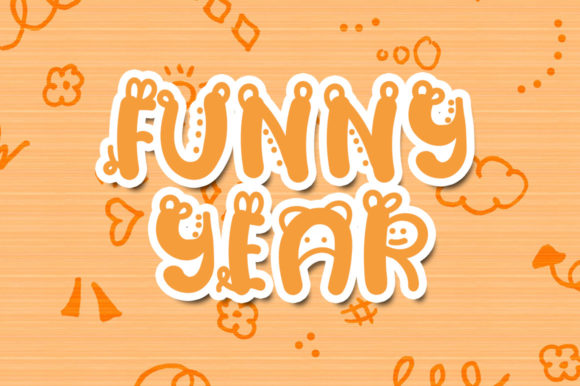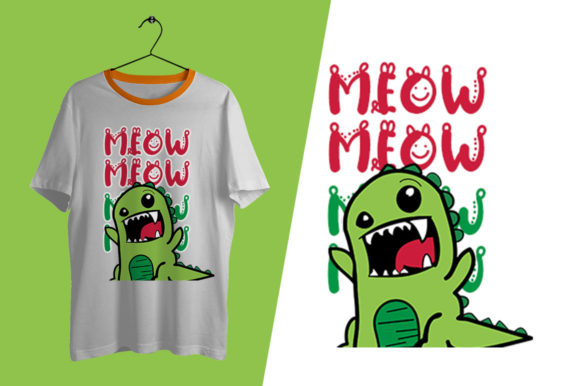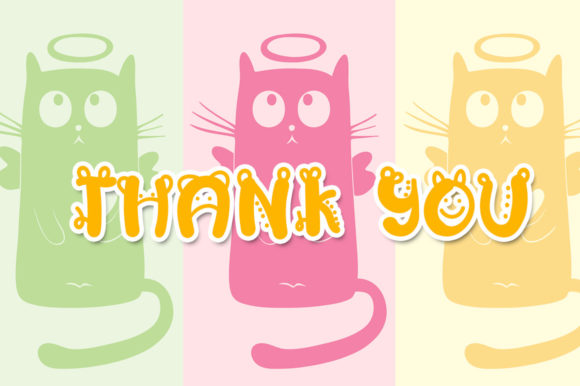
Introduction to Cat Love Font
Cat Love is a beautiful and sweet font.
It is fresh, clean, and elegant This font will look amazing in a great number of projects, both formal and informal.
Key Features of Cat Love Font
Why Choose Cat Love Font?
Cat Love Font offers exceptional quality and versatility, making it a valuable addition to your design toolkit. Whether you’re creating for personal projects or commercial use, Cat Love Font delivers professional results.